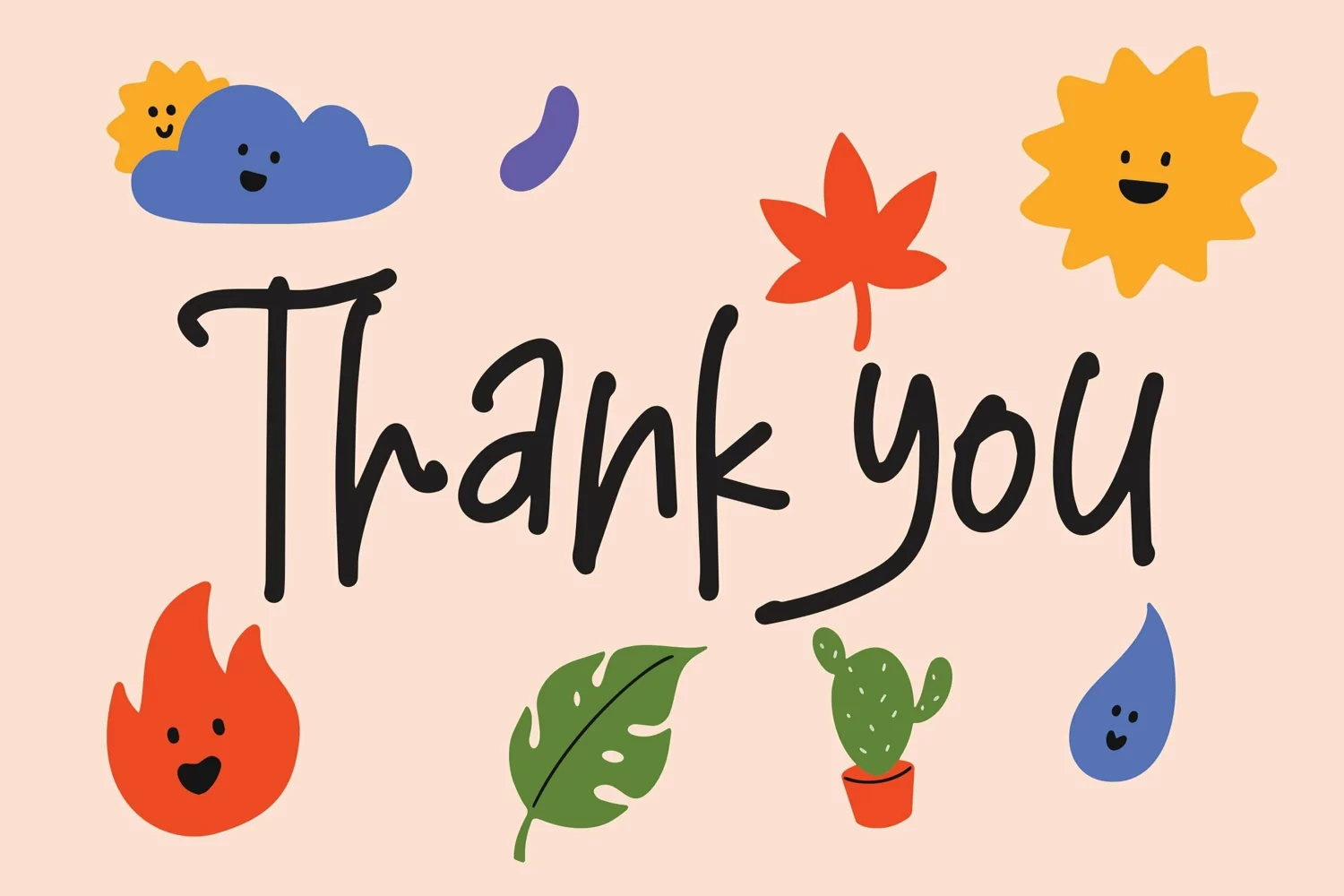
Satuhari - Children's Writing Font that contain lowercase, uppercase, symbol, and also support multi language. There’s a lot ligatures in this font. This Font also comes with ligatures, alternates and many more. this font suitable for fashion, branding, catalog and other design what you want.